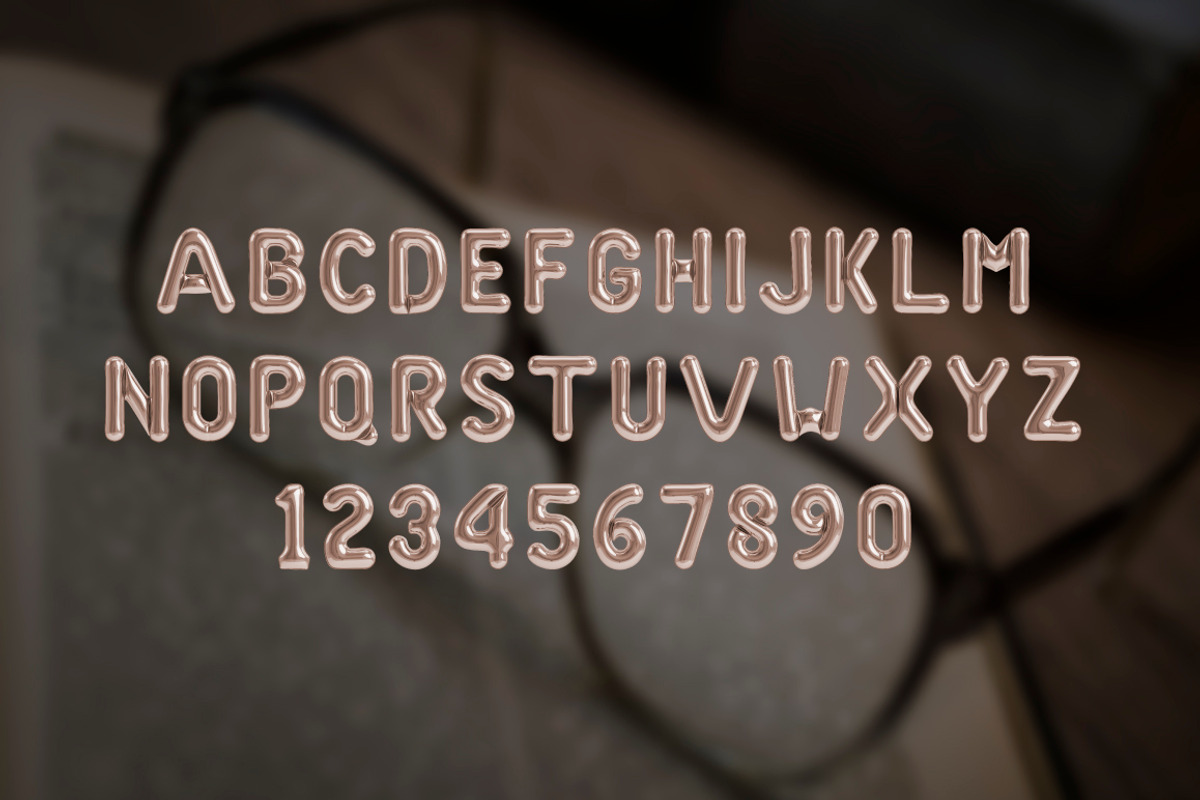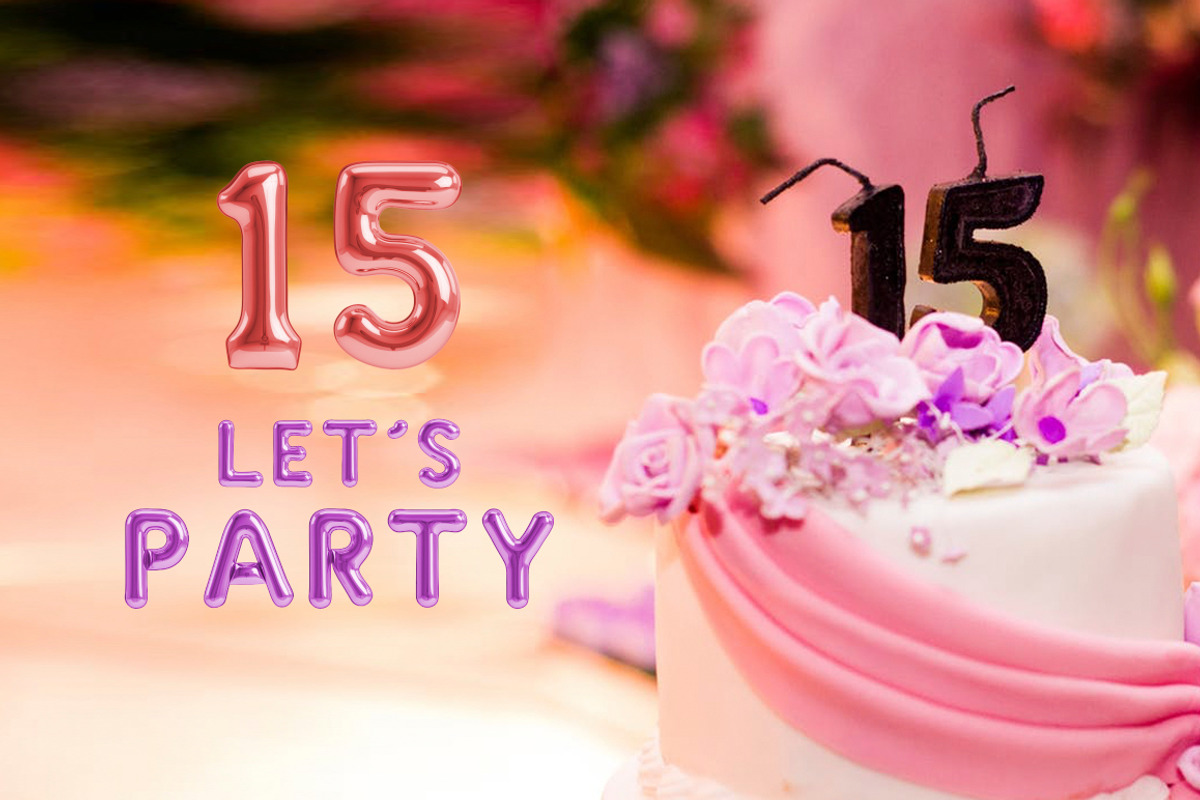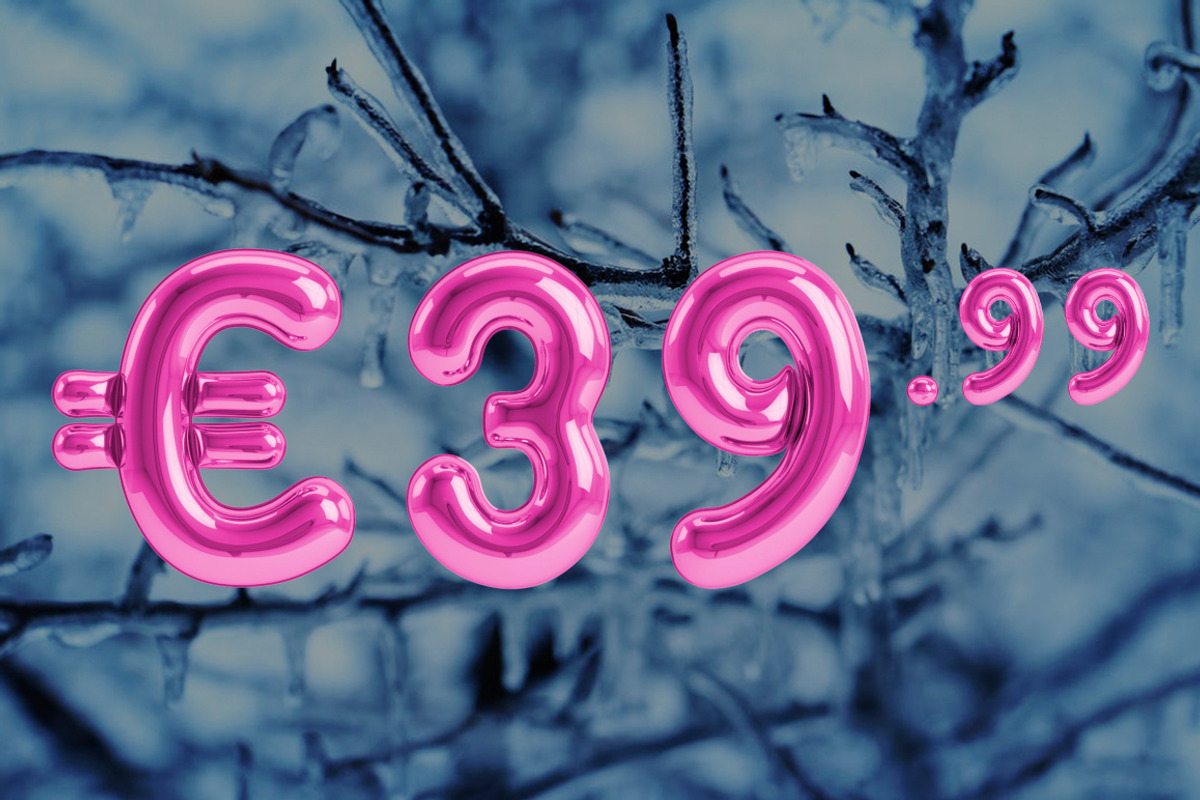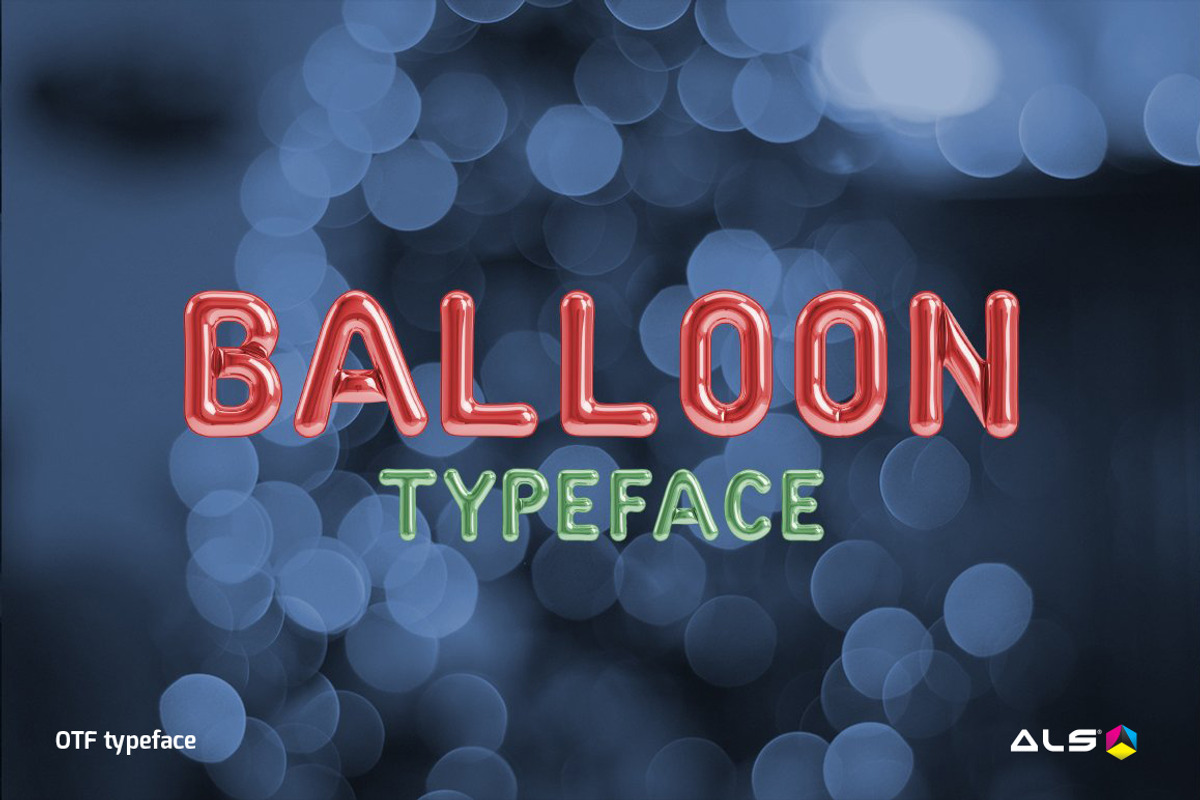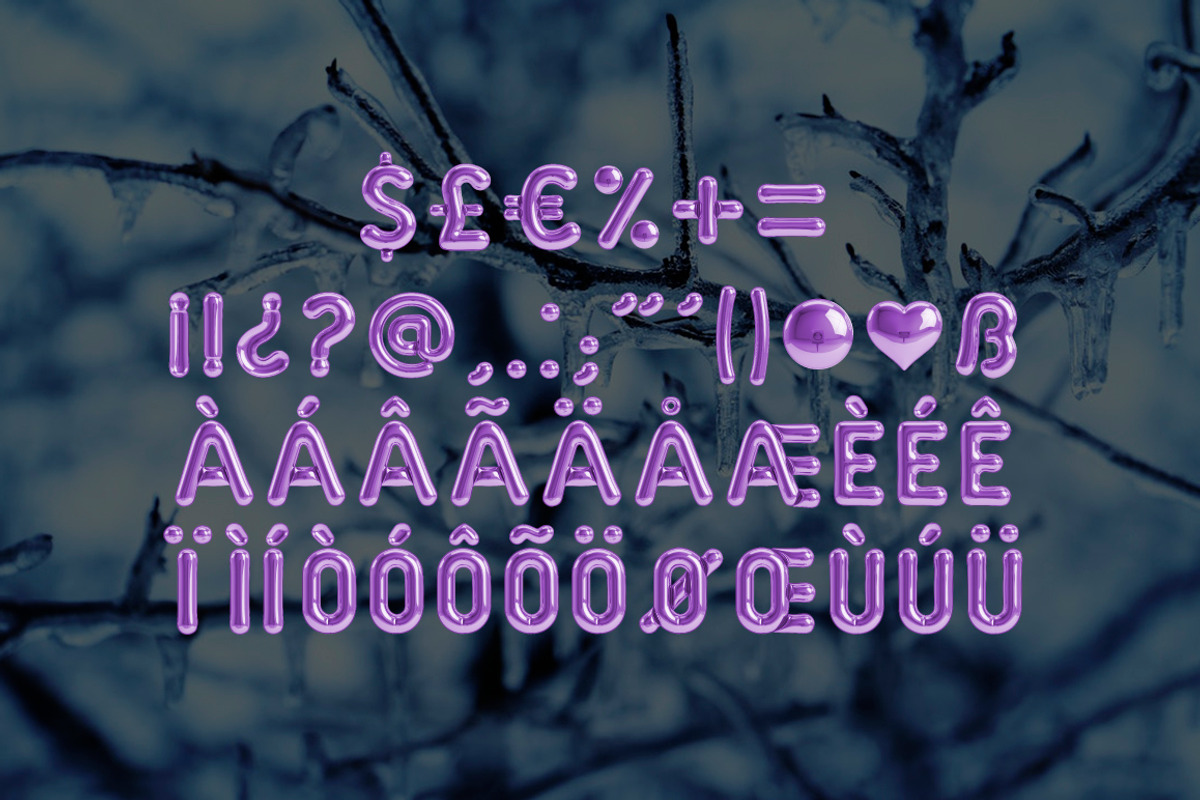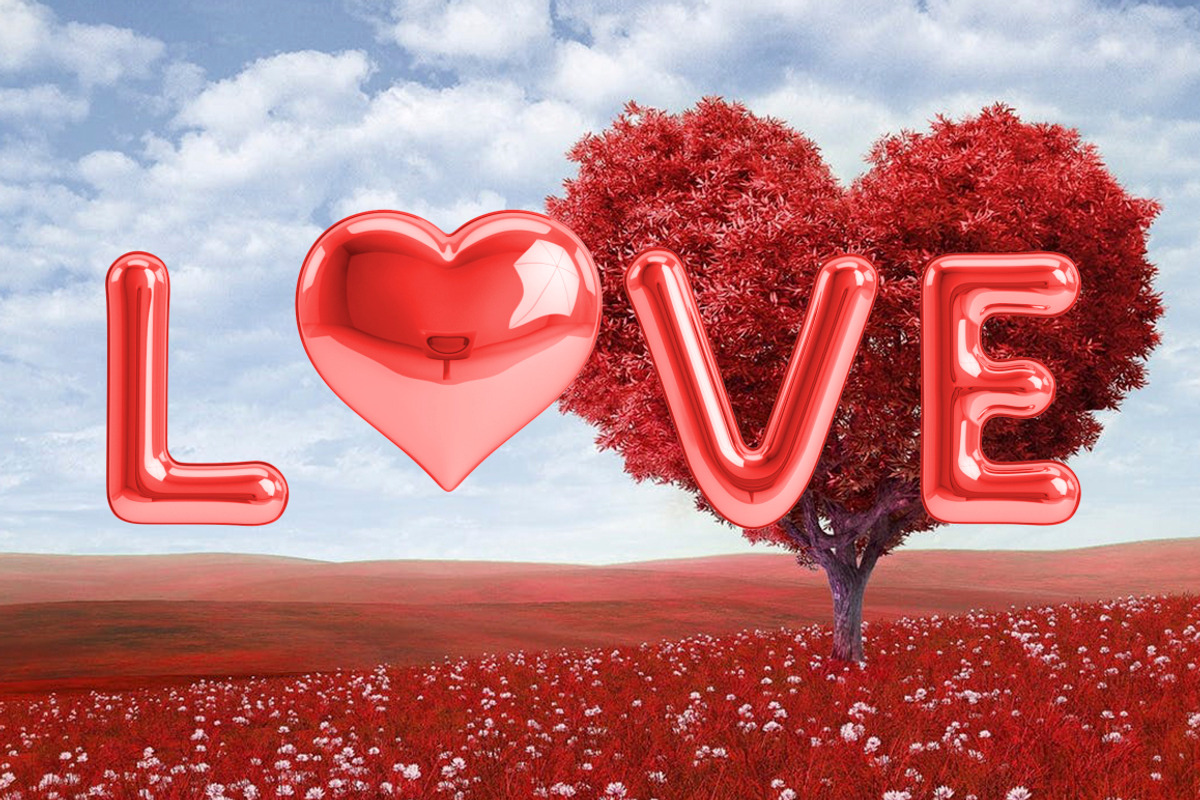
Balloon Typeface
Uppercase letters, numbers 0-9 and punctuation, symbols, compatible with some languages
Why Balloon Typeface is worth a look
Balloon Typeface by ALS design fits naturally into Branding, posters, packaging, typography.